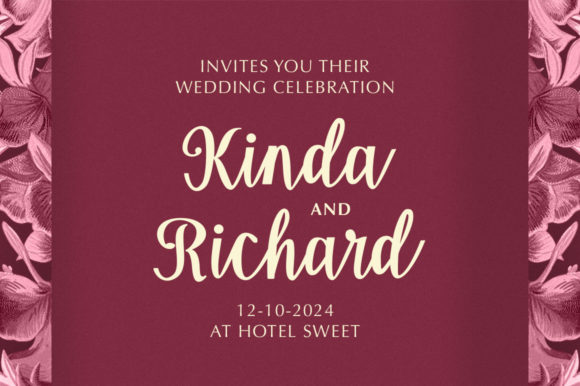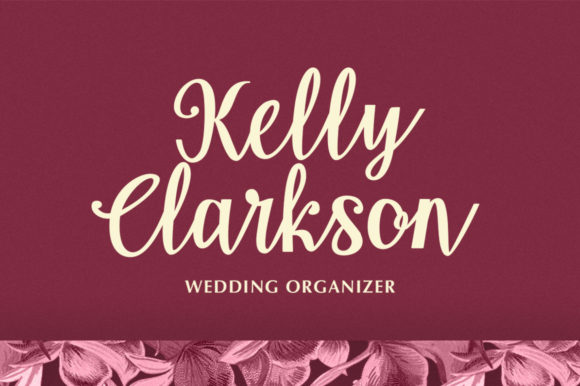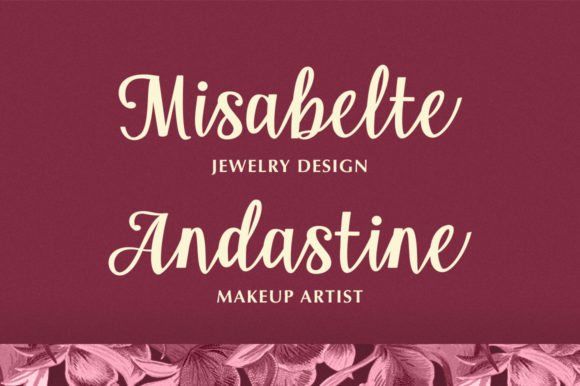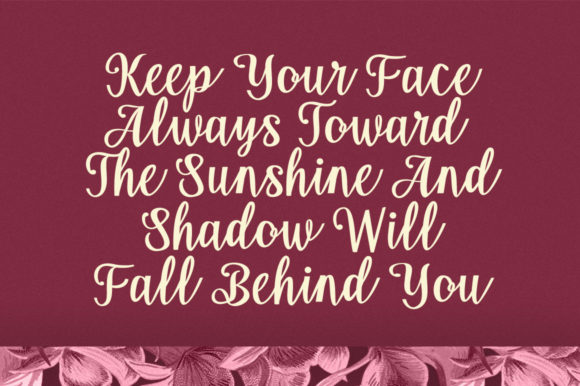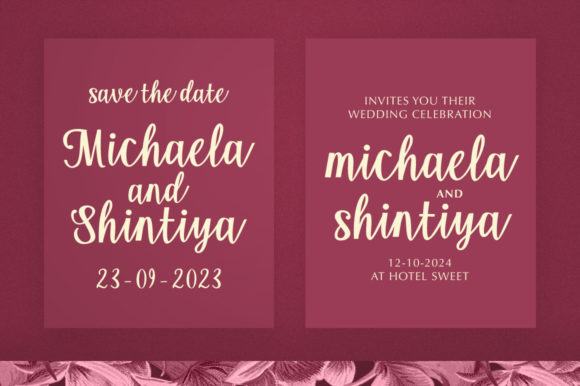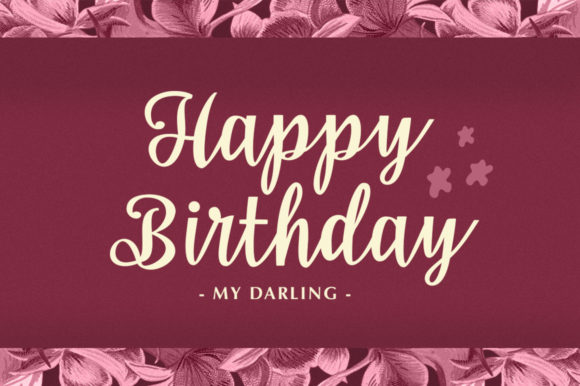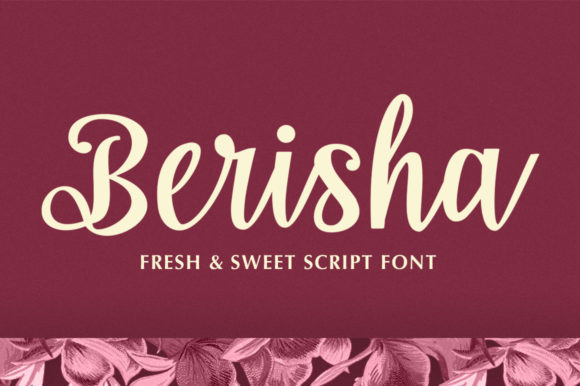
Introducing Berisha Script Font: Elevate Your Designs with Elegance
In the world of typography, script fonts hold a special place for their ability to add a touch of elegance and personality to any design. Among these, the Berisha Script Font stands out as a stylish and incredibly elegant choice, perfect for designers and crafters looking to infuse their projects with a handwritten charm. Whether you’re working on wedding invitations, thank you cards, quotes, greeting cards, logos, business cards, or any other design that needs a personal touch, Berisha Script is sure to impress.
The Essence of Berisha Script Font
Berisha Script Font is designed to bring a level of sophistication and grace to your designs. Its fluid strokes and beautiful ligatures mimic the elegance of handwritten script, making it an ideal choice for projects that demand a high level of refinement. The font’s versatility allows it to be used in a variety of contexts, from formal events like weddings and galas to more casual applications such as branding and advertising.
Why Choose Berisha Script?
- Elegance and Versatility: Berisha Script offers a perfect blend of elegance and versatility. Its unique character set and stylish appearance make it suitable for a wide range of design projects.
- Easy to Read: Despite its elegant and cursive nature, Berisha Script is remarkably legible, making it a practical choice for both headings and body text.
- Customizable: The font comes with a range of features that allow for customization, including swashes and stylistic alternates, giving designers the flexibility to tailor the font to their specific needs.
- Support for Multiple Languages: Berisha Script supports multiple languages, making it a great option for international projects or for designers who work with clients from diverse linguistic backgrounds.
Applications of Berisha Script Font
The applications of Berisha Script Font are vast and varied. Here are a few ideas to get you started:
- Wedding and Event Stationery: Create stunning wedding invitations, save the dates, and thank you cards that set the tone for your special day.
- Branding and Logo Design: Use Berisha Script to add a touch of elegance and sophistication to your brand’s logo and marketing materials.
- Greeting Cards and Quotes: Add a personal touch to your greeting cards, quotes, and inspirational messages with this beautiful script font.
- Business Cards and Stationery: Elevate your business cards, letterheads, and invoices with a font that exudes professionalism and style.
Tips for Using Berisha Script Effectively
To make the most of Berisha Script Font, consider the following tips:
- Pair with Complementary Fonts: Combine Berisha Script with simpler fonts for body text to create visual interest and hierarchy in your designs.
- Adjust Font Sizes: Play with different font sizes to emphasize certain parts of your text and create a dynamic layout.
- Utilize Swashes and Ligatures: Don’t be afraid to experiment with the font’s swashes and ligatures to add flair to your designs.
Berisha Script Font is a versatile and elegant addition to any designer’s toolkit. Its beautiful design, combined with its readability and flexibility, makes it an excellent choice for a wide range of projects. Whether you’re a professional designer or a crafter, Berisha Script is sure to help you create stunning designs that leave a lasting impression. So, why wait? Dive into the world of Berisha Script and elevate your designs with its timeless elegance.